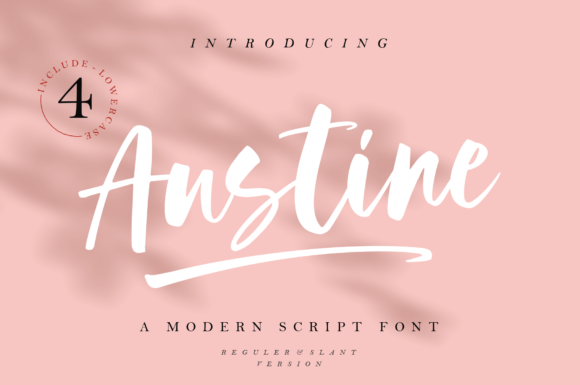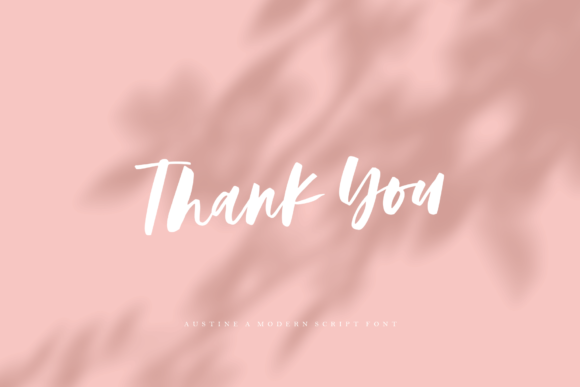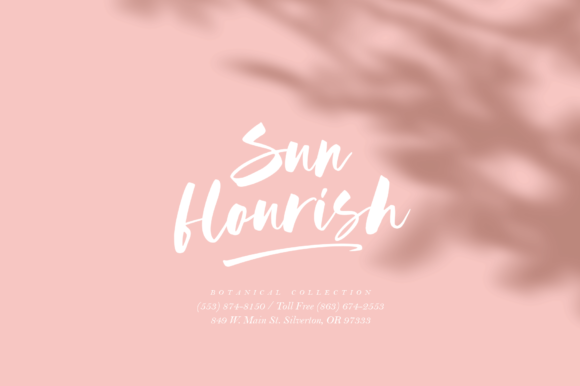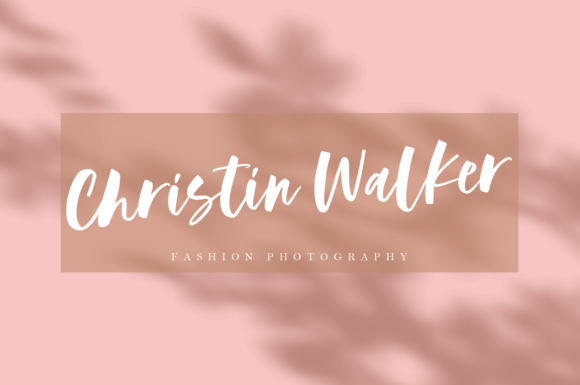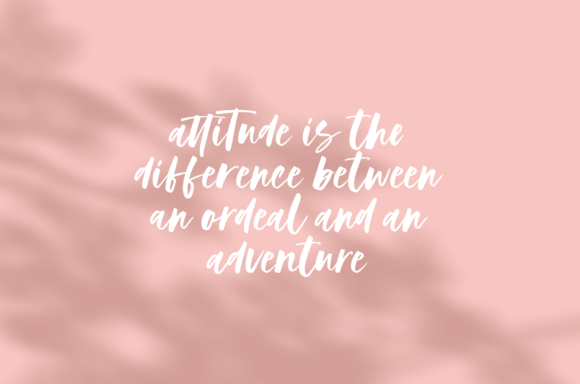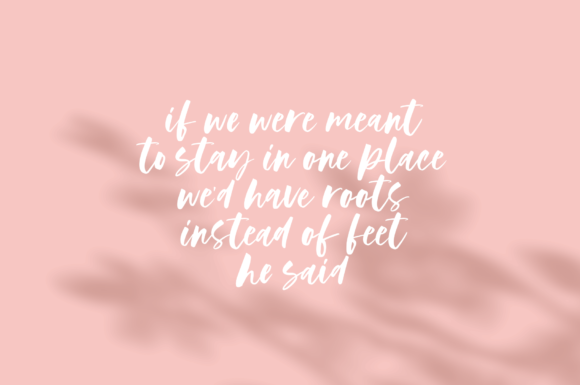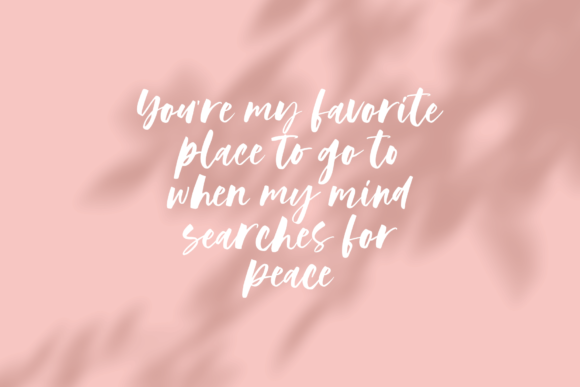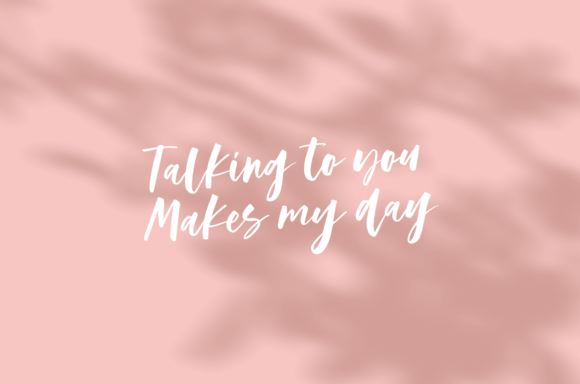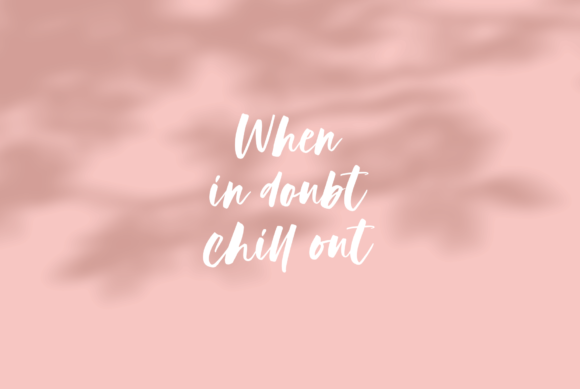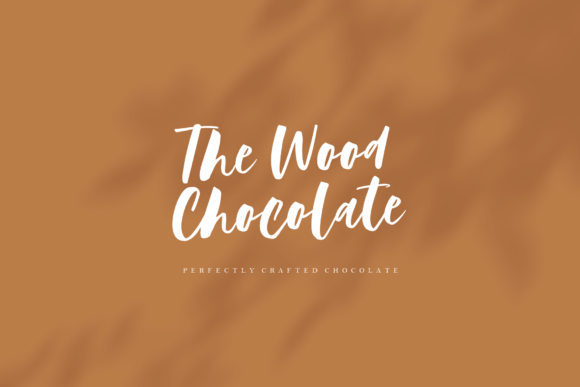
Austine Font
About Austine Font
Austine is a bold and modern script font. A little bit quirky, this font looks incredibly adept on a wide variety of contexts!